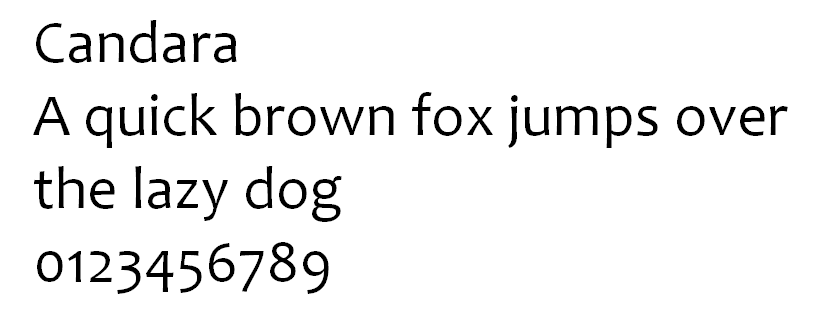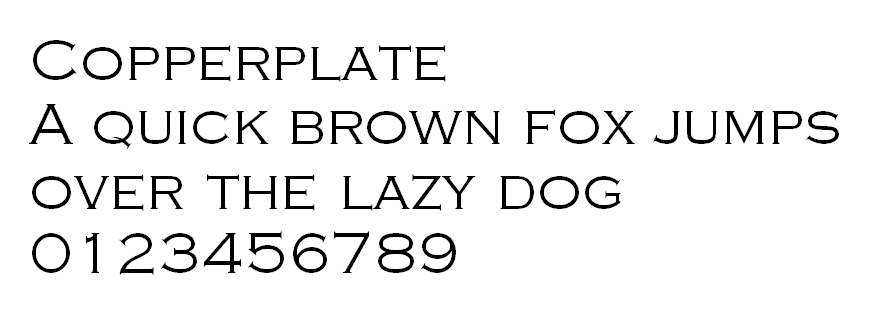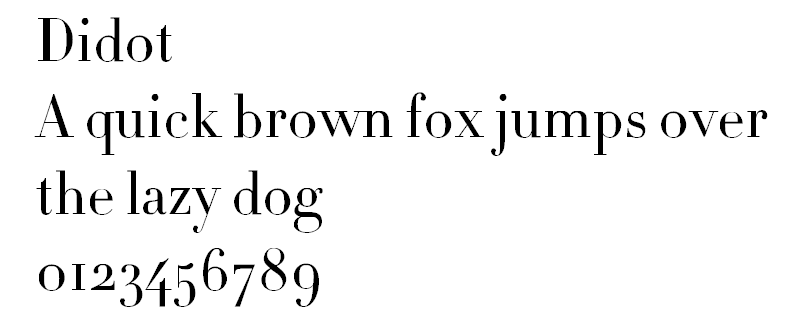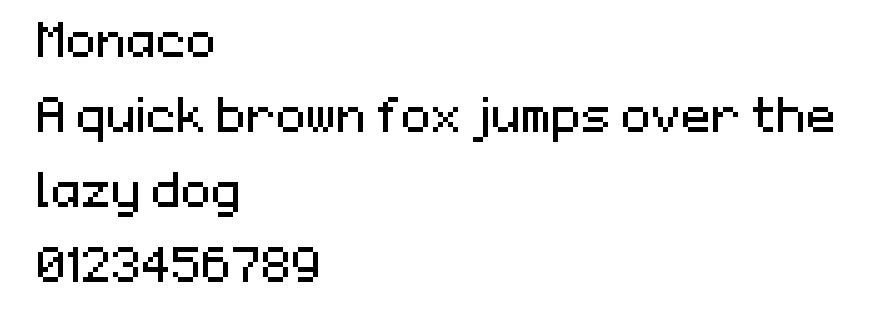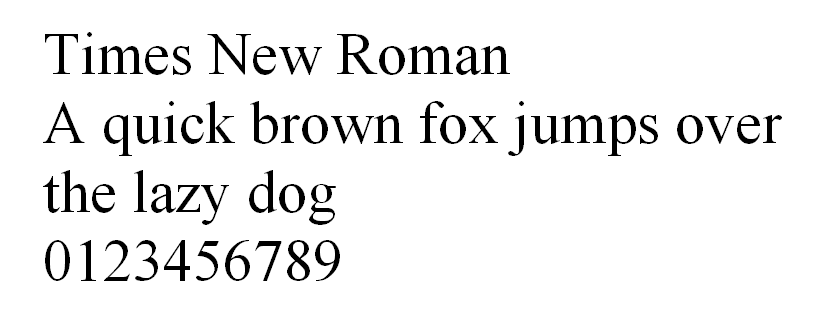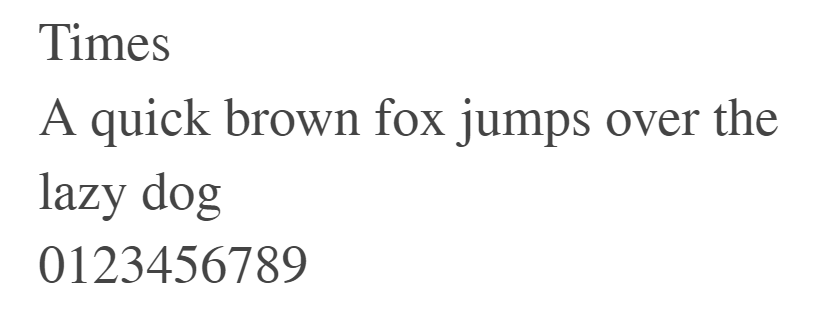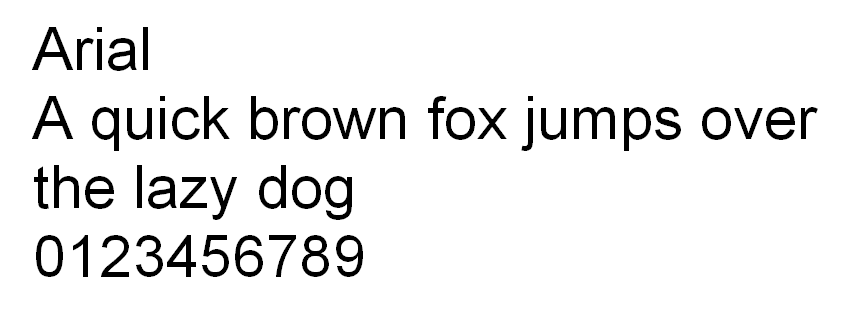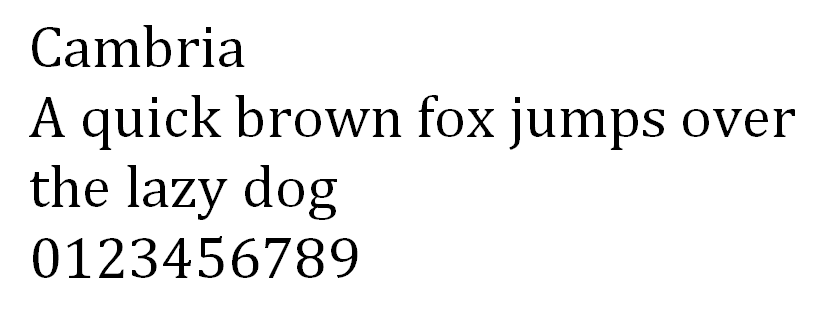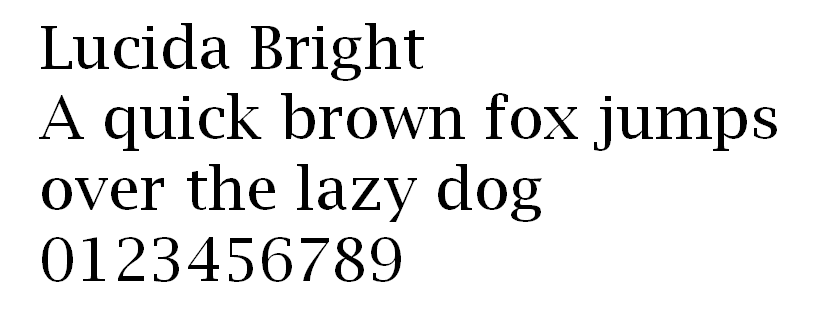
The 20 Best HTML Fonts to Use in 2025
Fonts play a large role in the overall visual appeal of a website. A carefully selected font will help convey the right message and establish branding consistency.
To achieve this, a great web font should be readable and web-safe, meaning it renders well across different devices, browsers, and operating systems.
However, choosing a suitable font is not always so easy. It’s common to come across fonts that are visually appealing but aren’t web-safe or vice versa.
In order to help out, we’ve curated a list of the 20 best HTML web fonts for your website.
What Is a Web-Safe Font
Web-safe fonts are fonts that come pre-installed across most operating systems. This ensures that the fonts render as intended when accessed from various devices and browsers.
Most popular examples of web-safe fonts include Arial, Times New Roman, and Helvetica.
What Are the Categories of HTML Fonts
In typography, each font is a member of one of five font families, categorized according to their design similarities. They are:
Cursive
Cursive fonts imitate handwriting, usually having the letters joined together in a looped, flowing manner.
Many people associate this font type with individuality, expression, and calligraphy. It’s best to use this font type for headers, taglines, and blog post titles on your website, rather than the body text. When used as a default font, cursive can be hard to read.
Fantasy
The Fantasy font family generally features decorative attributes present on each letter. Popular among works of fiction, typefaces from this font set can help instantly communicate their genre and immerse the audience.
For example, this font category is widely used in fantasy and sci-fi movies such as Star Wars, Harry Potter, and Frozen.
Serif
The most prominent style attribute of serif fonts is the presence of small, additional strokes by the edges of the letters. While initially used for ink printing purposes, the font style is now associated with a sense of formality and elegance.
Websites mainly use Serif for body text, as it is highly legible and helps readers quickly skim written content.
Popular Serif fonts include Times New Roman, Cambria, and Garamond.
Sans-serif
As a counterpart to the serif font category, Sans-serif fonts do not display additional strokes attached to their letters.
Most fonts from this family feature similar widths, appearing both modern and minimalistic.
Sans-serif fonts are legible in any size, making the typefaces a great choice for both print content and digital use.
Monospace
Each letter and symbol found in Monospace fonts are of the same width.
Since the fonts are consistent and easy to distinguish, they are often the default font for typewriters and computer terminals.
20 Best Web-Safe HTML Fonts
Below are 20 web-safe HTML font options that you can apply to your content.
1. Arial
Arial is a versatile sans-serif font with a contemporary feel. Each letter is thick and sturdy, achieving a clean and minimal look.
Arial has been a staple screen font due to its readability when scaled to any size. In fact, it is the default font for Google Docs.
Other than that, this typeface is also popular in printed media such as newspapers and advertisements.
Overall, if you’re looking for a classical font that will be suitable for most websites, Arial is a great choice.
2. Arial Narrow
Arial Narrow is one out of 38 styles of the Arial font family. Compared to the original typeface, this style offers a much more sleek design.
Letters appear narrow and condensed, with little space between them. This makes Arial Narrow a great choice for minimalistic websites.
Great font-pairing options include bolder sans-serif typefaces such as Verdana and Geneva.
3. Times
Times is a highly legible serif font due to its visible contrast and condensed style.
People tend to be familiar with this font as it’s found in a variety of media, from books and messaging apps to commercial publishing projects.
Originally, Times was primarily used in printed media such as newspapers, becoming associated with journalism and academic writing ever since.
Therefore, this font is the perfect choice to create a familiar and formal feeling on your website.
Additionally, this font is suitable for websites with long blocks of text, such as online newsrooms and blogs.
4. Times New Roman
Times New Roman is a variation of the Times font from the serif font type.
It is a popular text typeface widely used in printed media such as magazines and books but also a very popular font in HTML due to its versatility and legibility.
With its professional font style, Times New Roman has become the favorite choice for formal content found in news publications and educational websites.
5. Helvetica
Helvetica is a versatile HTML font as its clean design is suitable for any type of display.